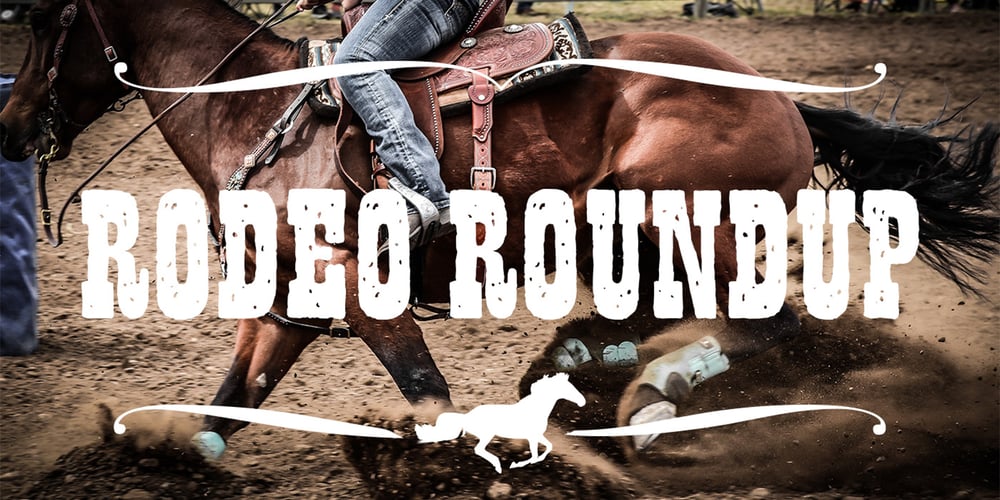
Wanted Font Family was designed by Esselte Letraset and published by ITC. Wanted contains 1 styles and family package options. One look at the font Wanted brings to mind swinging saloon doors, double shots of whiskey and sheriff’s badges. It belongs to the so-called Italienne typefaces which began to appear at the beginning of the 19th century. The distinguishing characteristic of such typefaces is the robustness of its serifs, which exceeds that of the base strokes. Wanted looks almost as though it were stamped on paper. Small white flecks appear in some of the strongest black strokes just as they would in a stamp which did not get quite enough ink…or are they perhaps the work of a sharp shooter? Wanted is best for short headlines and perfect for anything which should have the look and feel of the Wild West.